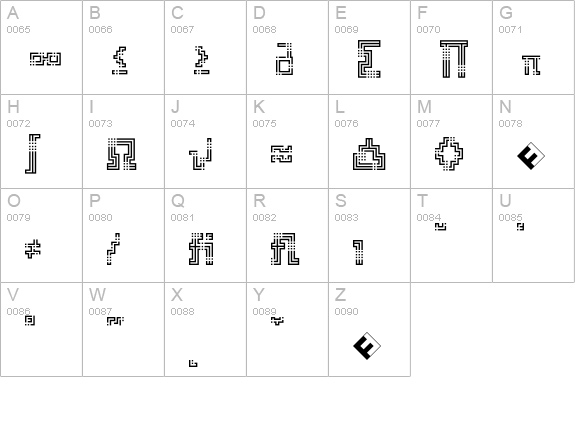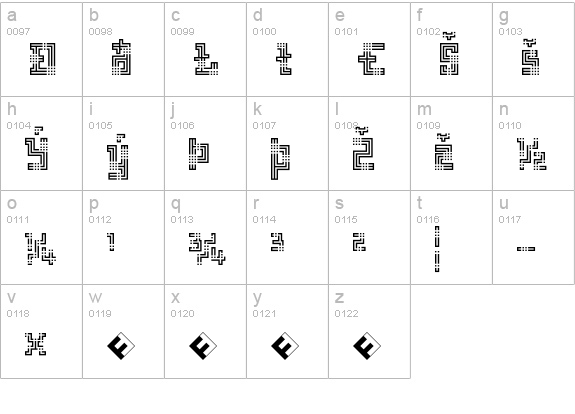
Introducing the captivating and dynamic Archian-BoogieWoogieExpert font, designed to bring a sense of rhythm and energy to your projects. This playful and lively font is perfect for adding a touch of whimsy and creativity to your designs. With its unique style and flair, Archian-BoogieWoogieExpert will surely make a statement and stand out from the crowd. And the best part? This font is completely free to download at FontsMarket.com! So go ahead and unleash your creativity with Archian-BoogieWoogieExpert, the perfect choice for those looking to add a fun and vibrant touch to their projects.